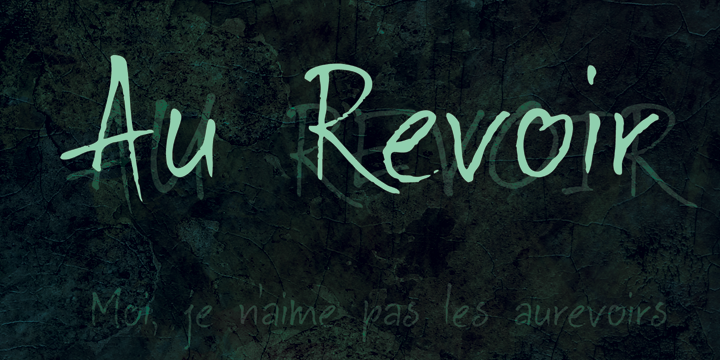
Au Revoir Font Free Download delivers an elegant typeface that embodies French sophistication and farewell grace with romantic melancholy. However, for commercial use, you must purchase this font. You can download it for free for testing purposes only.
Au Revoir Font excels in sophisticated design applications including Parisian café branding, French restaurant signage, farewell party invitations, romantic memoir publications, boutique travel agencies, vintage French fashion labels, intimate bistro menus, nostalgic wedding materials, French language schools, and bittersweet lifestyle campaigns. This poignant typeface brings French emotional depth to romantic design projects.
What makes Au Revoir Font truly exciting is its perfect capture of French emotional elegance with letterforms that evoke the melancholic beauty of Parisian farewells and romantic partings. The font features gracefully crafted characters with French proportions and sophisticated sadness that convey both elegance and emotional depth. Its romantic melancholy and French sophistication make it ideal for brands celebrating French culture, romantic transitions, and audiences who appreciate emotional storytelling, French artistic heritage, and the bittersweet beauty of meaningful goodbyes that mark life's important passages.
The Au Revoir Font family typically includes Regular weight with potential romantic flourishes and French-inspired elements that enhance its farewell character. These sophisticated options provide designers with complete French styling while maintaining the font's distinctive romantic elegance and emotional presentation across various French applications and farewell contexts.
Whether you're developing French cultural branding, creating romantic farewell materials, or designing emotionally-resonant campaigns, Au Revoir Font Free Download provides the French authority and romantic sophistication that emotional storytelling projects require. Its exceptional elegance and farewell appeal make it invaluable for designers working with French brands, romantic services, and emotionally-focused organizations requiring typography that honors French cultural heritage, celebrates romantic expression, and reflects the beautiful sadness of meaningful departures that mark the end of one chapter and the beginning of another in life's ongoing romantic journey.